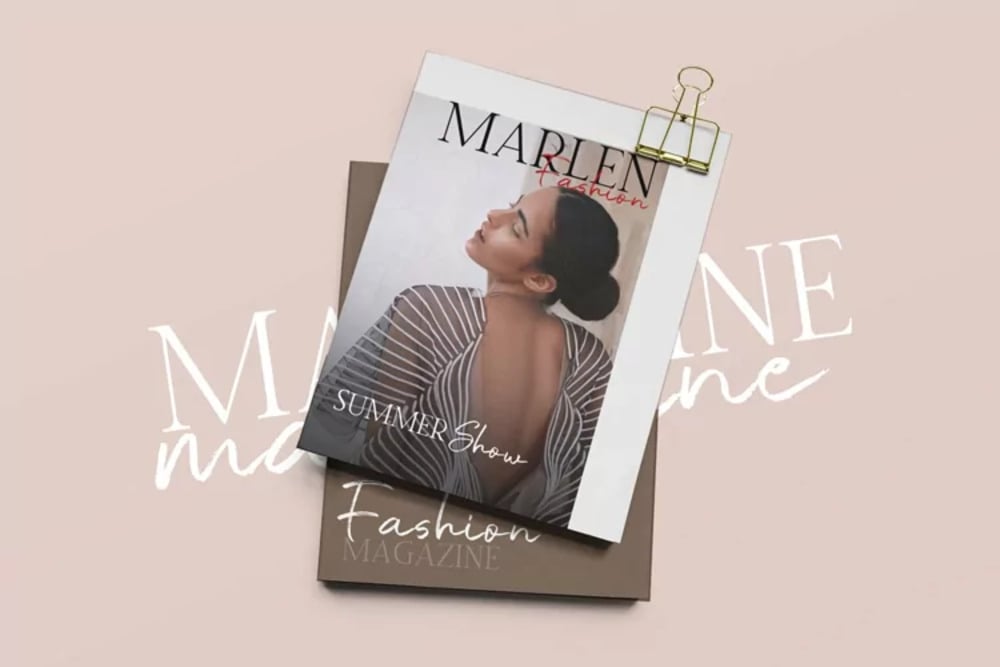
Twice Writing Font
Twice Writing is a captivating font duo that elevates your designs with its harmonious blend of modern and classic elements. The elegant script font adds a touch of handwritten warmth and fluidity, while the refined serif font provides a strong foundation of timeless sophistication. This versatile pair seamlessly transitions from sophisticated logos and branding to captivating wedding invitations and impactful editorial designs.